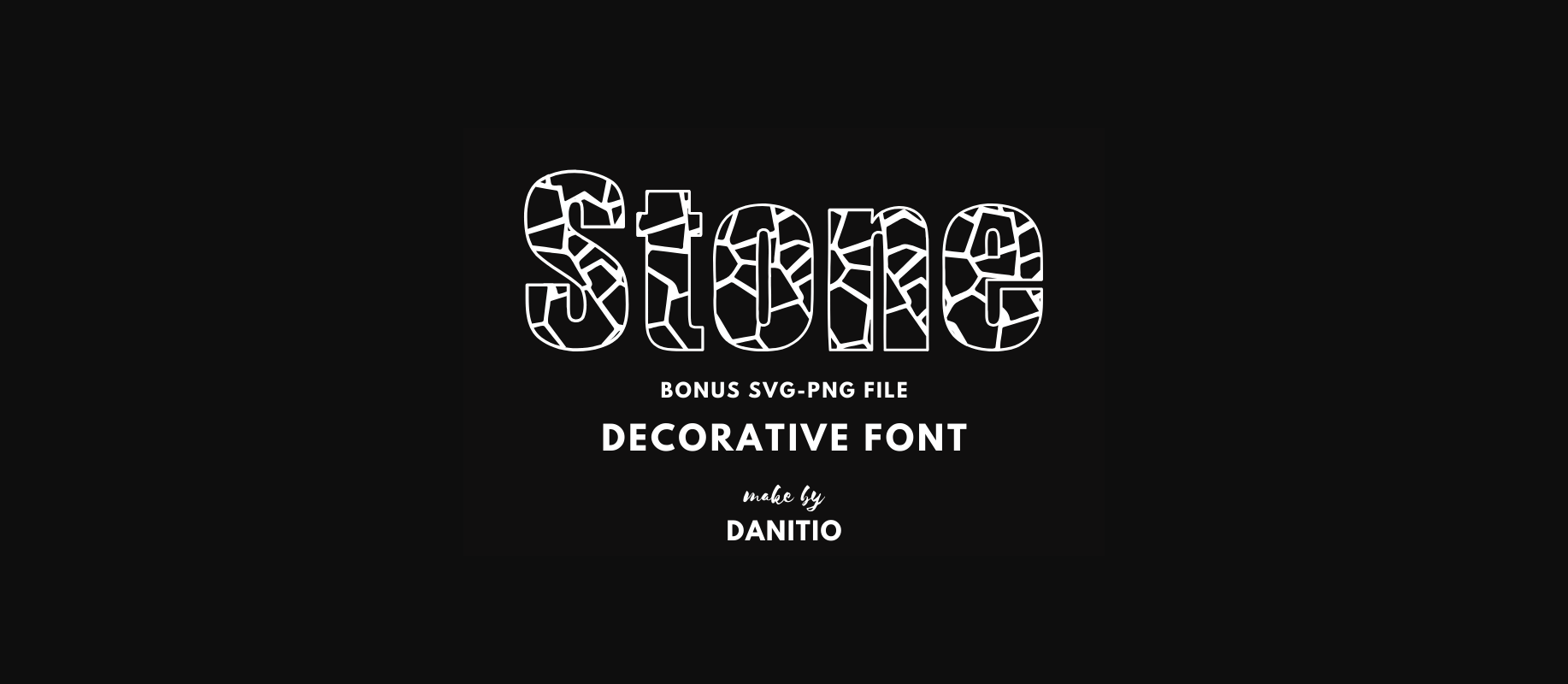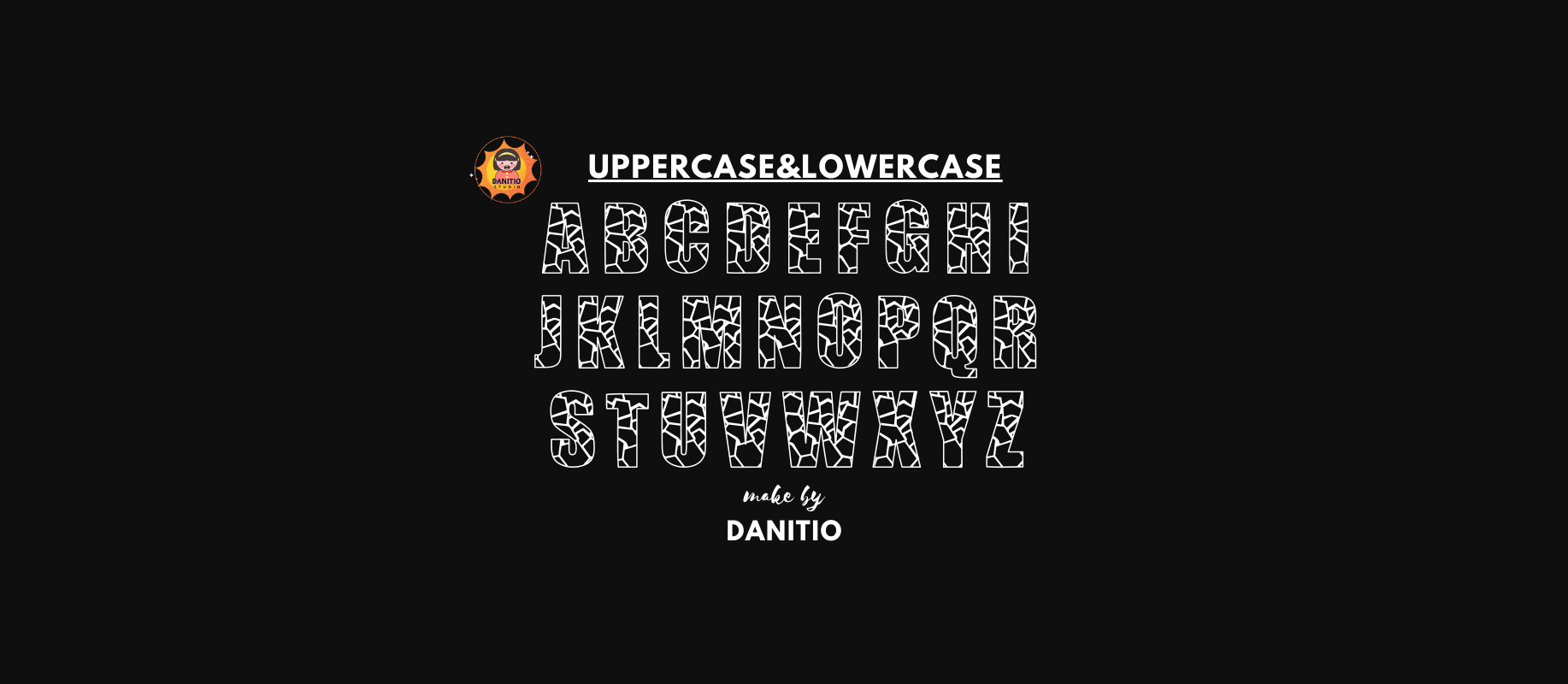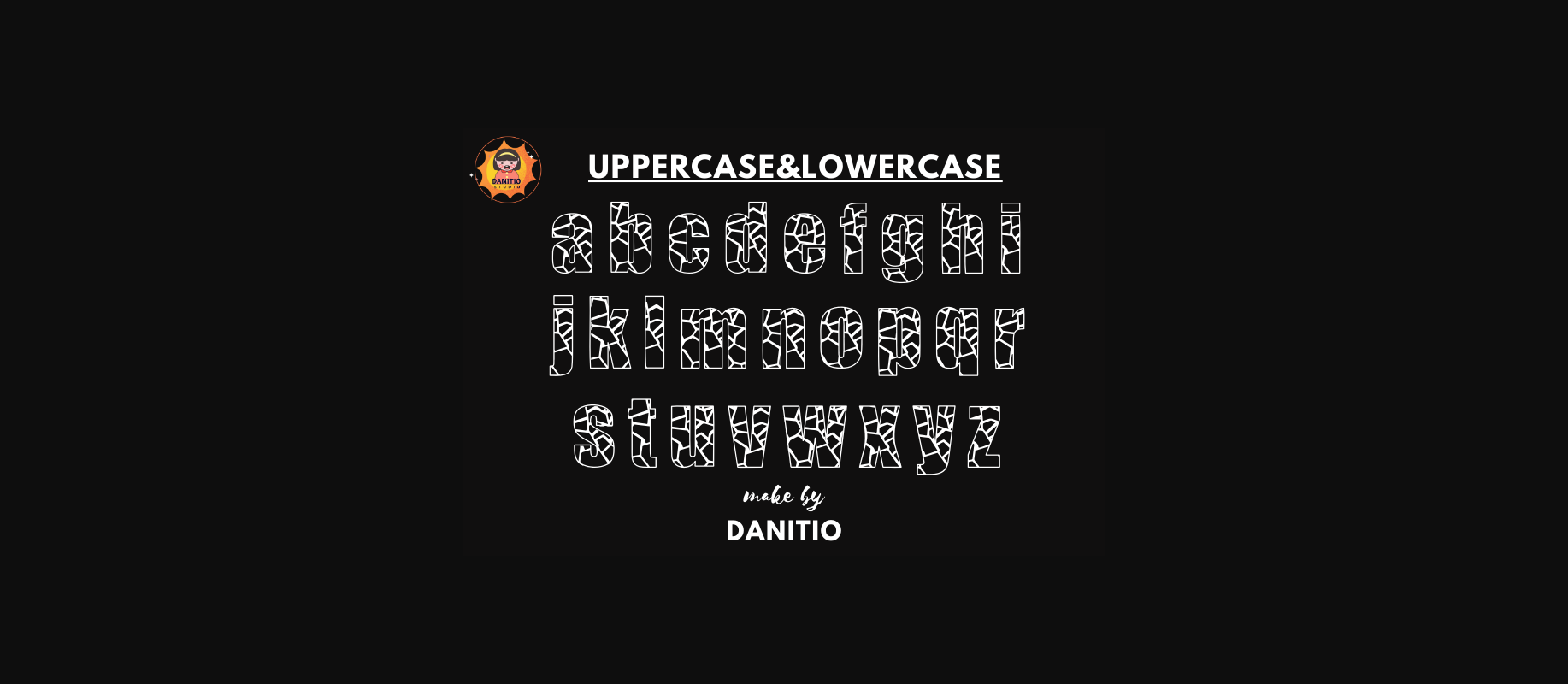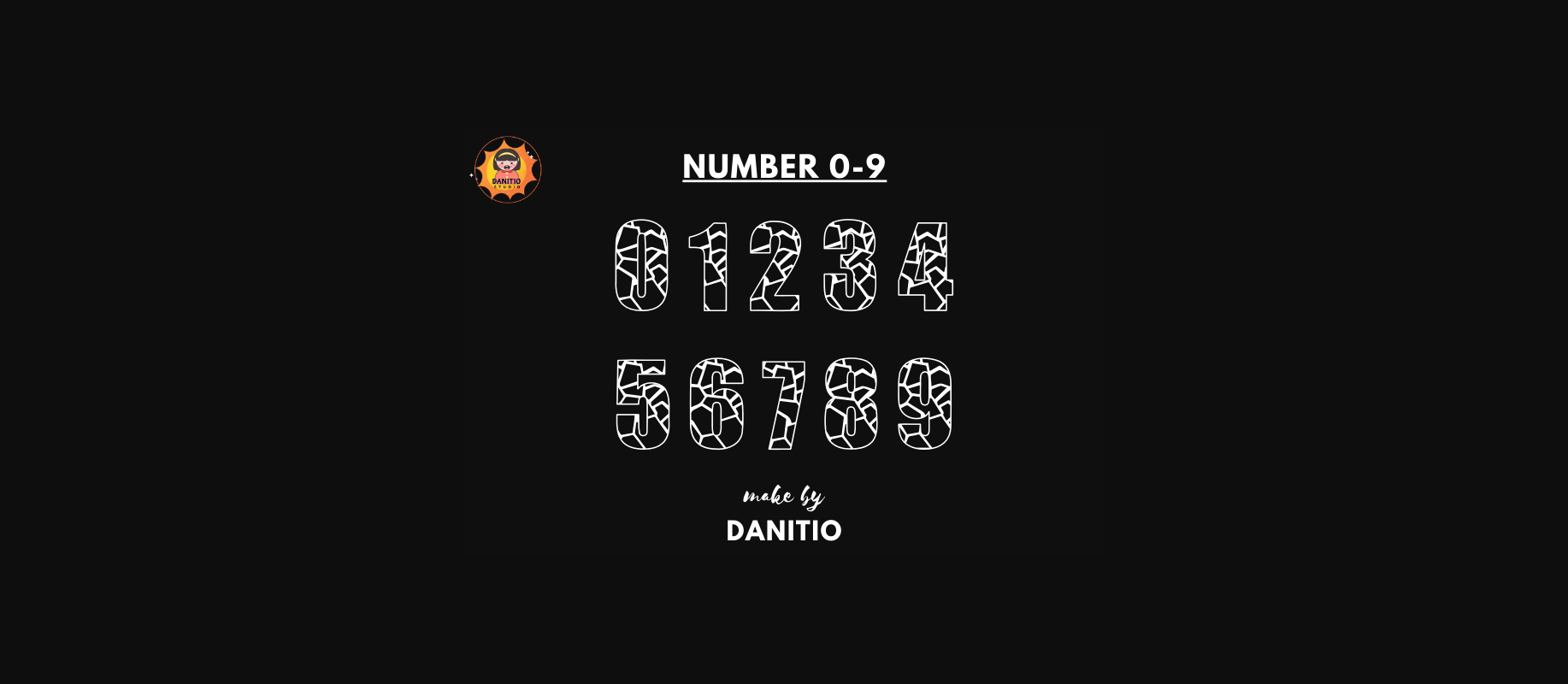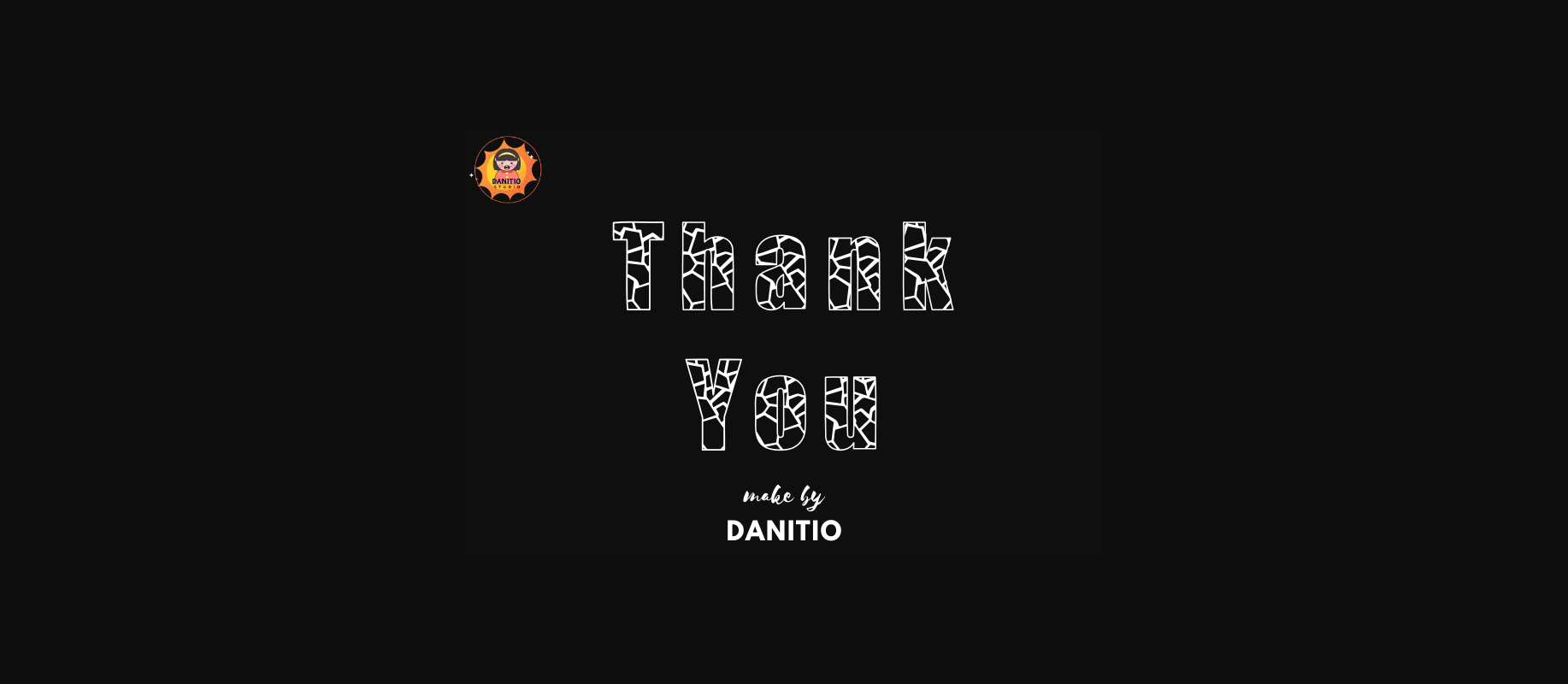
Stone Font
About Stone Font
Stone is a decorative font. The perfect combination of charming, natural stone patterns and matching letters gives a natural touch to any design. This font is suitable for products such as t-shirts, pillows, tote bags, mugs, stickers, labels, cards, and anything else you think is appropriate. I hope you enjoy my fonts.